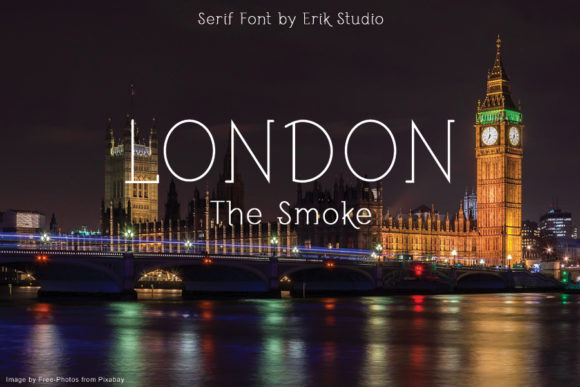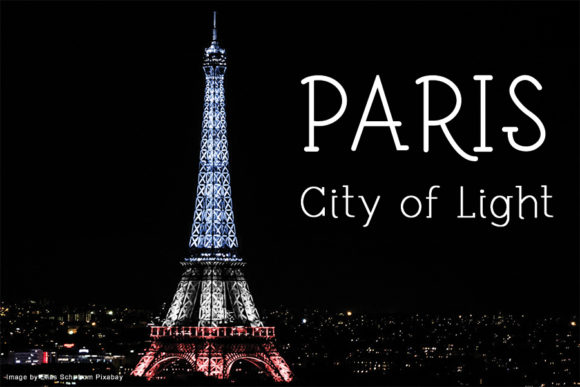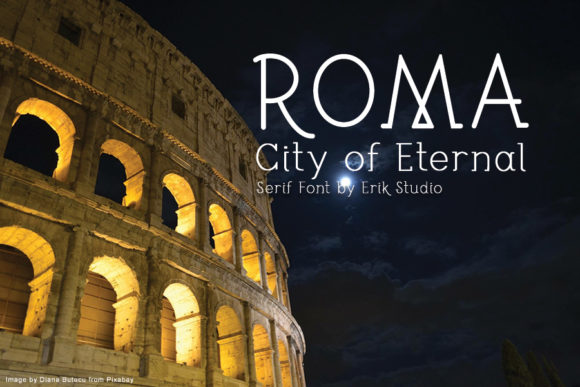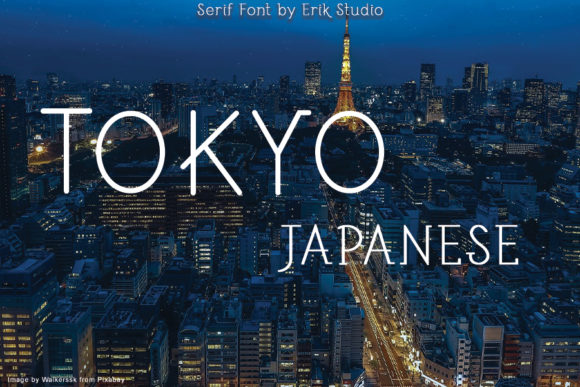
Introducing Capital City Font: Elevate Your Designs with a Unique Display Font
Are you tired of using the same old fonts in your designs? Look no further than Capital City Font, an incredibly unique display font that’s sure to take your creative projects to the next level. Masterfully designed to become a true favorite among designers and crafters, Capital City Font is the perfect addition to your font collection.
What Makes Capital City Font So Special?
Capital City Font is more than just a font – it’s a statement piece. Its unique design and bold style make it perfect for headlines, titles, and any other text that needs to stand out. Whether you’re working on a logo, brochure, or website, Capital City Font is sure to make a lasting impression.
One of the key features that sets Capital City Font apart is its versatility. It can be used in a variety of contexts, from formal and professional to playful and creative. The font’s clean lines and modern aesthetic make it perfect for designs that require a touch of sophistication, while its bold and eye-catching style ensures it will grab attention.
The Benefits of Using Capital City Font
So why choose Capital City Font for your next design project? Here are just a few benefits of using this incredible display font:
- Unique and Memorable: Capital City Font is unlike any other font on the market. Its distinctive design ensures your text will stand out and be remembered.
- Versatile: Whether you’re working on a logo, website, or print material, Capital City Font is the perfect choice.
- Easy to Read: Despite its bold style, Capital City Font is surprisingly easy to read, making it perfect for headlines and titles.
- Customizable: With a range of weights and styles to choose from, you can customize Capital City Font to suit your design needs.
How to Use Capital City Font in Your Designs
Ready to start using Capital City Font in your designs? Here are a few tips to get you started:
- Use it as a Headline Font: Capital City Font is perfect for headlines and titles. Use it to grab attention and draw the reader in.
- Pair it with Other Fonts: Experiment with pairing Capital City Font with other fonts to create a unique and eye-catching design.
- Customize it: Don’t be afraid to experiment with different weights and styles to customize Capital City Font to suit your design needs.
Who is Capital City Font For?
Capital City Font is perfect for designers, crafters, and anyone looking to elevate their creative projects. Whether you’re a professional designer or a DIY enthusiast, this incredible display font is sure to become a favorite.
Some examples of designers and crafters who may benefit from using Capital City Font include:
- Graphic Designers: Use Capital City Font to create stunning logos, brochures, and other marketing materials.
- Web Designers: Add a touch of sophistication to your website designs with Capital City Font.
- Crafters: Use Capital City Font to add a professional touch to your handmade products, such as signs, labels, and packaging.
| Font Name | Capital City Font |
| Author | erik studio |
In conclusion, Capital City Font is an incredibly unique display font that’s sure to take your designs to the next level. With its bold style, clean lines, and modern aesthetic, this font is perfect for anyone looking to make a statement. Whether you’re a professional designer or a DIY enthusiast, Capital City Font is a must-have addition to your font collection.